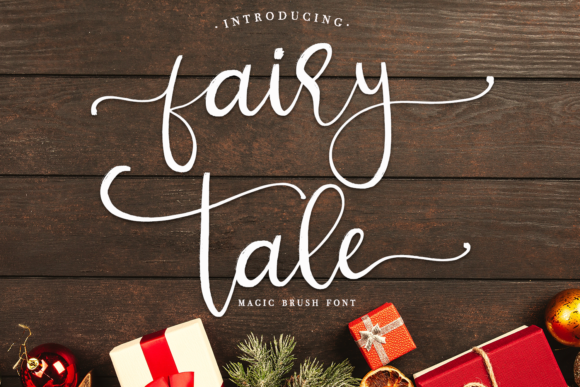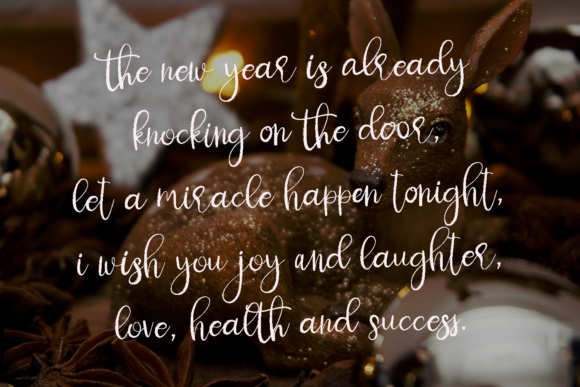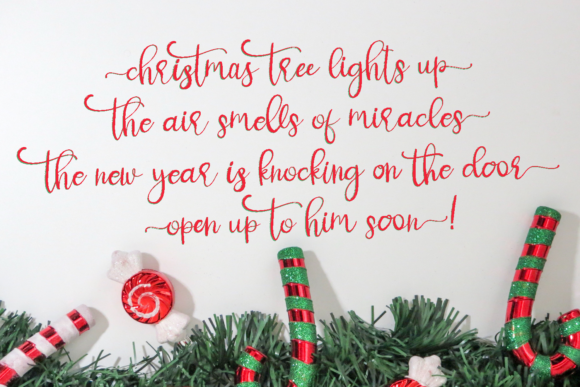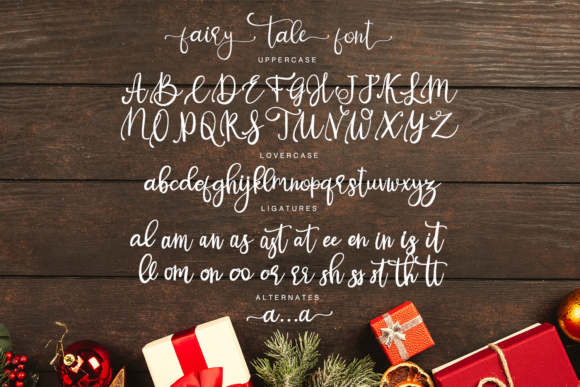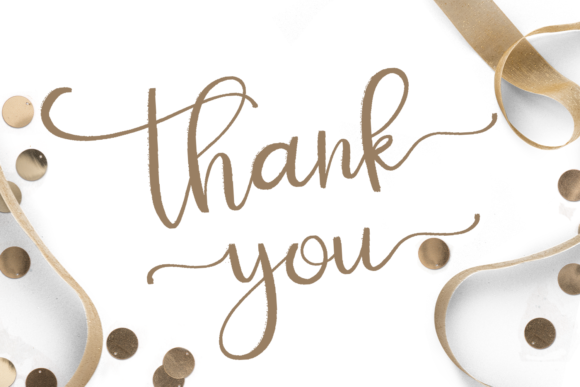
Fairy Tale Font
About Fairy Tale Font
Fairy Tale is a thin brush style handwritten font. Fall in love with its incredibly versatile style and use it to create spectacular designs!